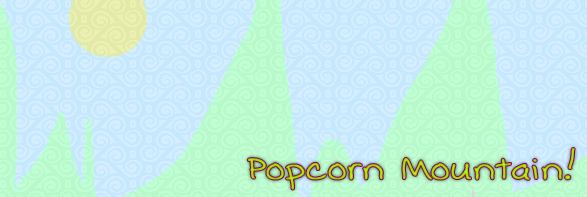
"Popcorn Mountain!" is a handwritten, opentype font that utilizes opentype features in an effort to appear more realistic. The font includes accented letterforms, math symbols, custom kerning, contextual alternatives and ligatures for many common letter combinations, and other stuff I guess. The font is free for personal as well as commercial use, but donations are always appreciated. Thanks! |